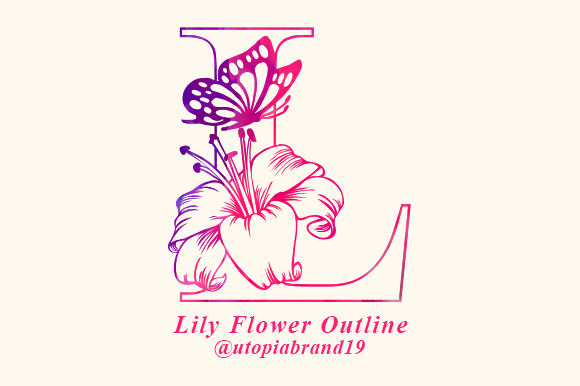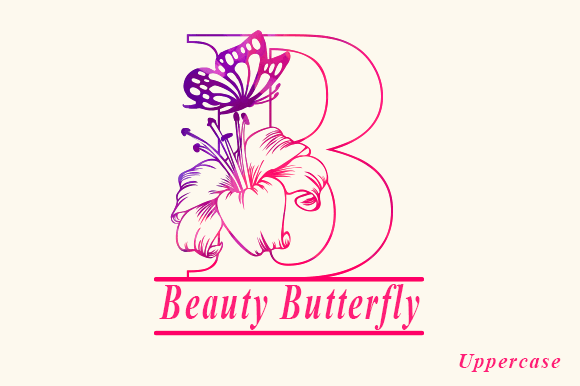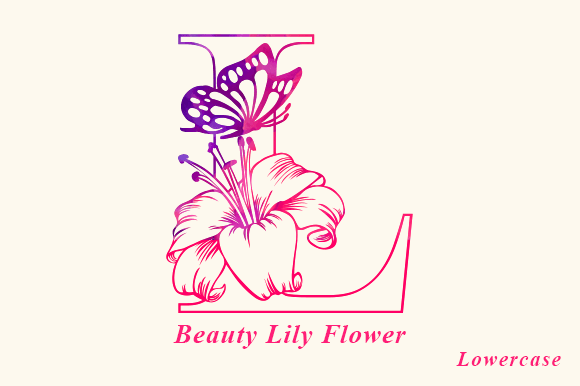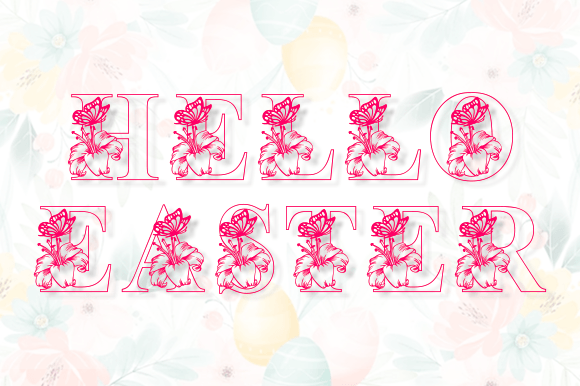
Lily Flower Outline Font
About the Lily Flower Outline Font
Unleash your creativity with Lily Flower Outline Font, a versatile font perfect for a wide range of applications. Lily Flower Outline is an elegant decorative font, featuring lovely ornaments. Fall in love with its authentic feel and use it to create gorgeous wedding invitations, beautiful stationary art, eye-catching social media posts, and cute greeting cards.
Its delicate outline style makes it ideal for projects requiring a touch of elegance and whimsy, such as wedding stationery, branding for boutiques, or social media graphics. However, its decorative nature limits readability in body text or UI contexts; avoid using it for long paragraphs or website copy.
Lily Flower Outline pairs well with clean sans-serif fonts like Open Sans for a balanced contrast, or a classic serif like Garamond for a more traditional feel. A script font, such as Great Vibes, could add a layer of handwritten charm for certain applications.
The font projects a personality that is both elegant and playful, making it suitable for brands aiming for a sophisticated yet approachable image. It’s best suited for short, impactful text where its decorative elements can shine.
Lily Flower Outline Font Usage Examples
Lily Flower Outline Font Example